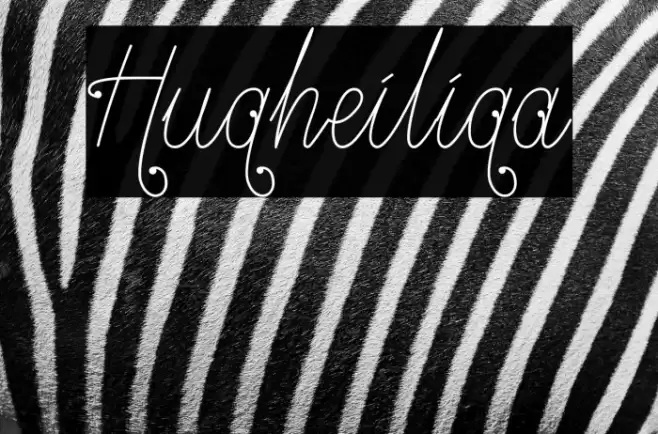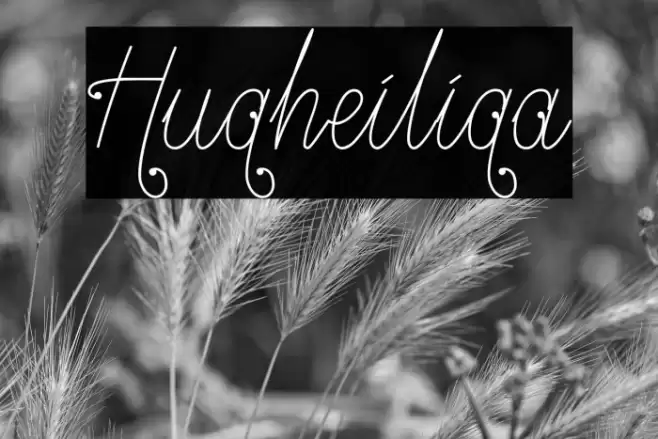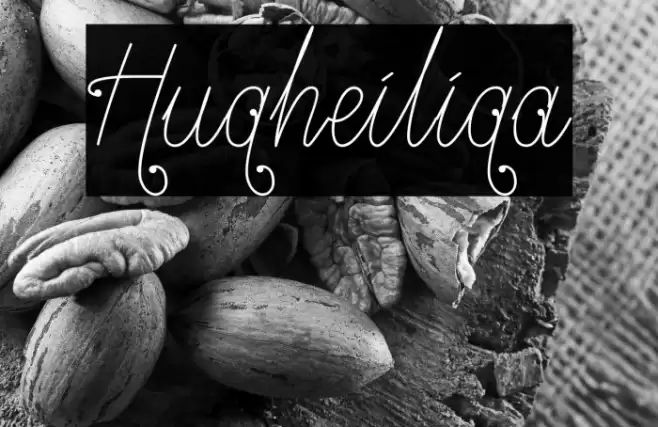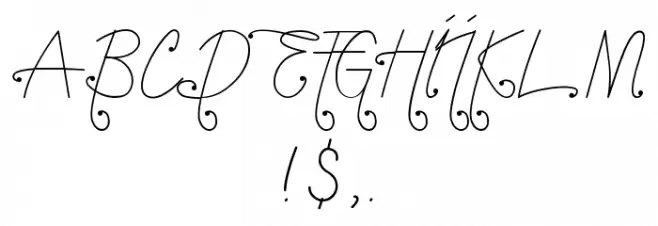
Hugheiliga Font
Hugheiliga Description
This elegant script font features a flowing, cursive style with intricate swirls and flourishes that add a touch of sophistication. The characters are delicately connected, creating a seamless and graceful appearance. The uppercase letters are adorned with decorative loops, while the lowercase letters maintain a consistent, fluid motion. The numerals and special characters are designed to complement the overall aesthetic, making it suitable for formal and decorative purposes. The font's thin strokes and high contrast give it a refined and stylish look, perfect for adding elegance to any design.
A graceful script font with elegant swirls and high contrast strokes from Regular fonts.
- Proposed Projects: Ideal for wedding invitations, elegant branding, greeting cards, and decorative signage.
- Use Case: Logos, Invitations, Decorative text